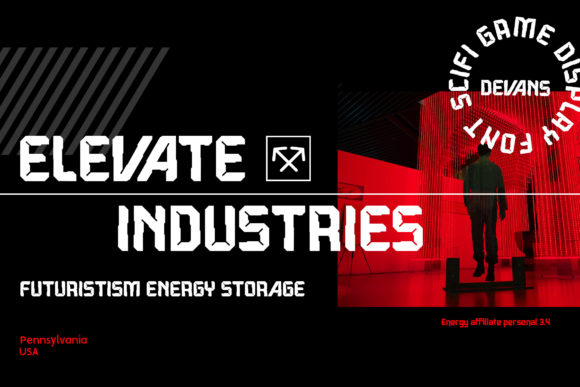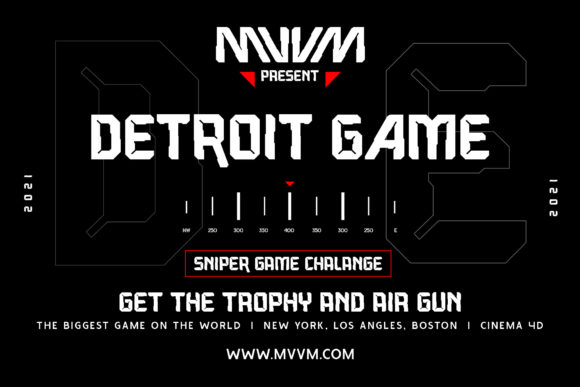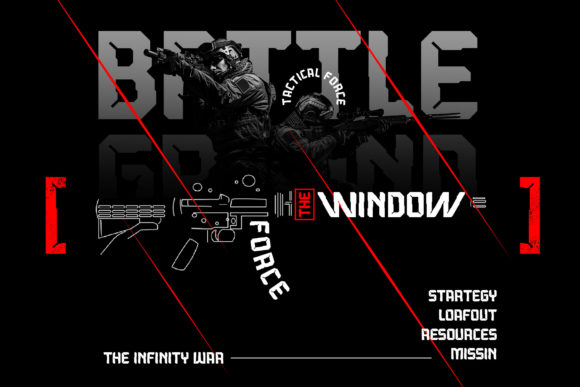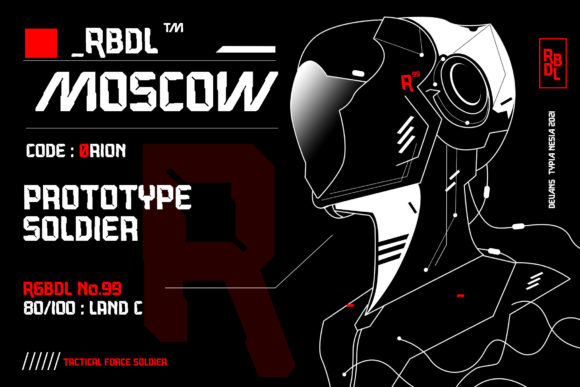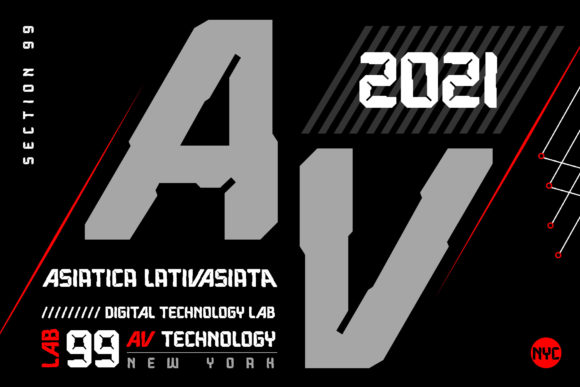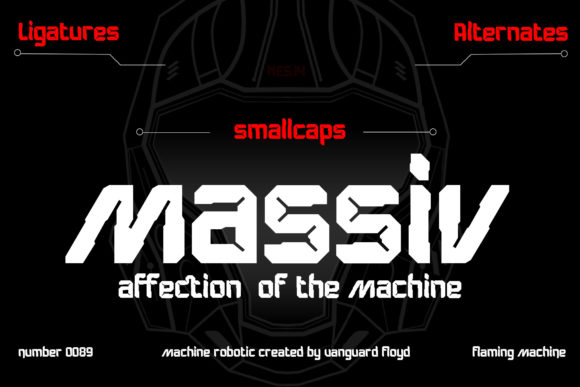
Introducing Devans Font: The Ultimate Robotic and Futuristic Display Font
Are you a designer or crafter looking for a font that screams futuristic and robotic vibes? Look no further than Devans Font! This versatile display font is perfect for a wide range of applications, from games and logos to 80s retro designs, sports racing, supercar brands, stationery, home decor, and beyond.
What Makes Devans Font So Special?
Devans Font is a one-of-a-kind, robotic and futuristic display font that is sure to elevate your designs to the next level. Its unique and bold character set makes it perfect for creating eye-catching logos, titles, and headings that demand attention. Whether you’re working on a project for a tech-savvy client or creating a design that requires a retro-futuristic flair, Devans Font is the perfect choice.
Perfect for Games and Logos
Devans Font is an excellent choice for game developers and designers looking to create a futuristic and high-tech feel for their games. Its bold and angular lines make it perfect for titles, headings, and logos that require a strong and dynamic presence. Additionally, the font’s robotic and mechanical feel makes it an excellent fit for sci-fi and futuristic-themed games.
80s Retro Designs and Nostalgia
The 80s retro design trend has seen a significant resurgence in recent years, and Devans Font is the perfect addition to any retro-futuristic design project. Its bold and futuristic lines evoke a sense of nostalgia and playfulness, making it perfect for designs that require a dash of retro flair. Whether you’re creating a design for a client who wants to tap into the nostalgia of the 80s or simply looking to add a touch of retro fun to your project, Devans Font is an excellent choice.
Sports Racing and Supercar Brands
Devans Font is also an excellent fit for sports racing and supercar brands looking to create a bold and dynamic visual identity. Its sleek and aerodynamic lines make it perfect for creating logos, titles, and headings that convey speed, power, and performance. Whether you’re working with a racing team, a supercar manufacturer, or a sports brand, Devans Font is sure to help you create a design that exudes energy and excitement.
Stationery and Home Decor
But Devans Font is not just limited to digital and print designs. Its unique and futuristic style also makes it perfect for stationery and home decor projects. Imagine creating custom stationery, such as greeting cards, invitations, or notebooks, with a font that adds a touch of robotic and futuristic flair. Similarly, Devans Font can be used to create eye-catching home decor items, such as typographic posters, wall art, or even customized home appliances.
Key Features of Devans Font
- Robotic and futuristic design: Devans Font features a unique and bold character set with a robotic and mechanical feel.
- Perfect for display text: Devans Font is optimized for display text, making it perfect for titles, headings, and logos.
- Versatile and flexible: Devans Font can be used for a wide range of applications, from digital designs to print materials.
- Easy to read: Despite its bold and futuristic design, Devans Font remains easy to read, even at smaller sizes.
Get Creative with Devans Font